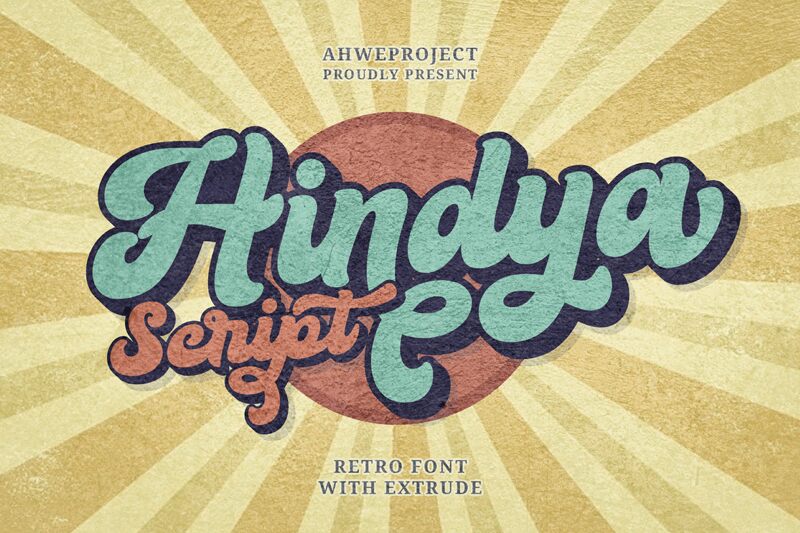
Introducing Hindya, an elegant script font designed by Dida Ahluddin. With its bold and wide letters, Hindya has a distinct retro feel that makes it perfect for crafting vintage logos, posters, labels and other creative projects.